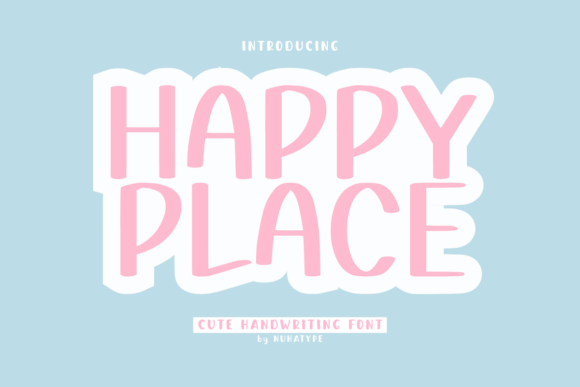
Step into the Happy Place
You know that moment when you’re brainstorming ideas and suddenly, everything clicks? The fonts start flowing, and your design vision comes alive? That’s exactly what the Happy Place Font aims to inspire. A delightful and uniquely cute handwriting display typeface, it’s the perfect addition to any design project seeking to inject warmth and personality.
With its rounded edges and hand-drawn baseline, the Happy Place Font captures the authentic feel of casual, playful lettering. Its subtle white offset shadow effect gives it an appealing three-dimensional quality, making it stand out on any background. Whether you’re crafting attention-grabbing titles, adorable branding for children’s products, or whimsical social media quotes, this charming font is a must-have for designers looking to infuse genuine, innocent fun into their work.
Happy Place Font Key Features
- Font Family: Happy Place Font, a modern and playful sans-serif font designed to evoke feelings of happiness and joy.
- Unique Characteristics: Features a unique blend of geometric and organic shapes, resulting in a friendly and approachable feel, perfect for branding and creative projects.
Happy Place Font Review
I was excited to dive into the Happy Place Font, but my enthusiasm was met with mixed results. ✨ The font’s playful and cheerful vibe is perfect for projects that require a touch of whimsy. It’s also great for text-based applications where readability is a top priority. The font’s clear lines and rounded edges make it easy on the eyes, even at smaller sizes.
- Playful and cheerful vibe
- Perfect for whimsical projects
- Excellent readability
However, ⚠️ the font’s limitations are more apparent when used in certain contexts. For instance, the font’s rounded edges can make it difficult to read in certain environments, such as on dark backgrounds or at very small sizes. Additionally, the font’s character set is limited, which may be a concern for projects that require a wide range of special characters or languages.
- Difficult to read on dark backgrounds
- Not ideal for small sizes
- Limited character set
Overall, the Happy Place Font is a solid choice for projects that require a lighthearted and approachable feel. While it may not be the best option for every situation, it’s definitely worth considering for the right project.
Tips for Getting the Most Out of the Happy Place Font
Use the Happy Place Font to add a touch of whimsy and playfulness to your designs. Experiment with different font sizes and colors to create visual interest. Pair the Happy Place Font with other bold and playful fonts to create a unique visual style.
The Happy Place Font is perfect for creating eye-catching social media graphics, designing playful logos, and adding a touch of fun to presentations and reports. Use the font to create a sense of excitement and energy in your designs.